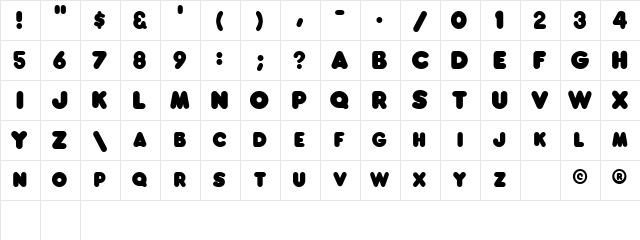
Franks Regular
Design Context for Franks Typeface
Franks offers clean, dependable letterforms without strong stylistic allegiance, making it a practical choice for designers who need flexibility.
Pro Tip: Use Franks in both headline and body roles to test its range before committing to a single application.